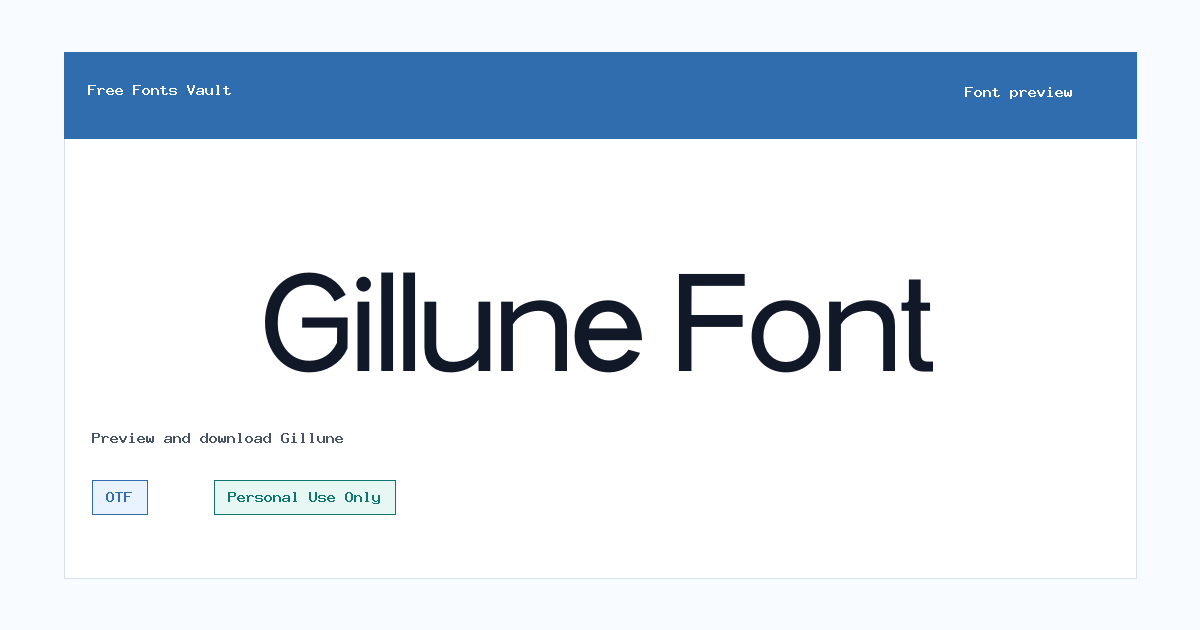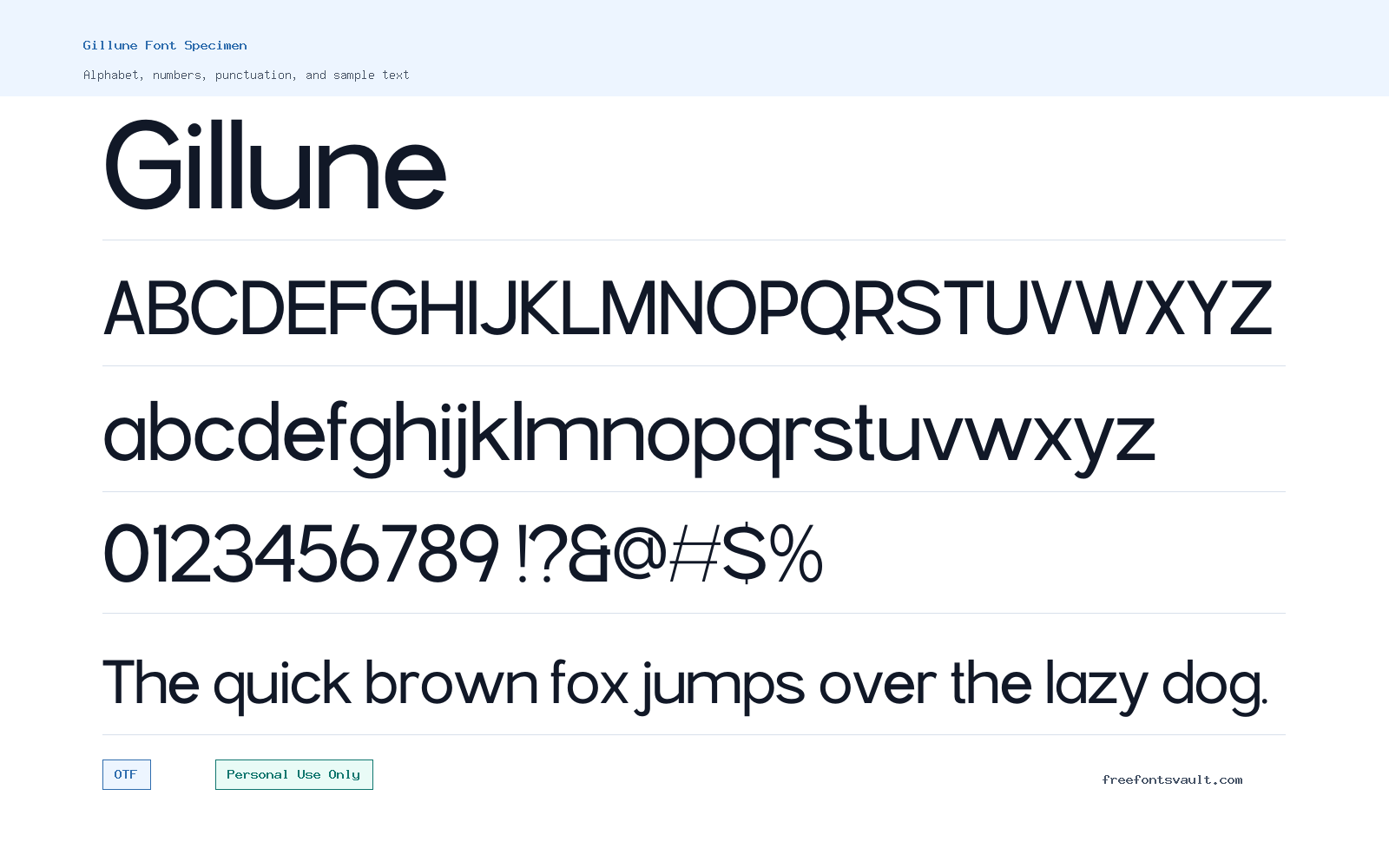
Gillune
Gillune is a clean geometric sans serif font family from Casloop Studio, made for sharp display typography, modern headings, and polished visual identity drafts. The downloadable set covers Regular, Italic, Bold, and Bold Italic OTF files, with a Personal Use Only license.
Gillune has the calm, structured look designers often want from a modern sans serif: simple letter shapes, even spacing, and a confident display voice without heavy decoration. It works best when the words need to feel neat and deliberate, such as brand name tests, poster titles, portfolio mockups, interface headings, and presentation covers. The bold style gives short phrases more presence, while the regular weight is useful for cleaner title lines and supporting text. The italic files add a slanted option for contrast, captions, or emphasis within a typographic layout.
Use Gillune first in the preview box with the real words you plan to design around. Test uppercase names, lowercase phrases, numbers, and any accented characters you need, because geometric display fonts can change mood quickly depending on the text. For logo work, check letters with strong shapes such as G, R, a, y, and round characters like O or C. For posters and web mockups, try it at large sizes with generous spacing. Avoid relying on it for long body copy until you have tested readability across paragraphs, smaller sizes, and mobile screens.
The family is especially useful for personal concept work where you want a corporate, minimal, or tech-adjacent tone without using a default system font. It can support clean branding studies, landing page hero text, social media title cards, pitch deck covers, and simple editorial graphics. The Bold and Bold Italic cuts are better for attention-grabbing display lines, while Regular and Italic are better for quieter hierarchy. If a design starts to feel too plain, pair Gillune with a warmer serif, a neutral text sans, or a restrained mono font rather than adding too many competing display faces.
For font pairing, keep the roles clear. Let Gillune handle the headline, logo draft, or short callout, then use a readable text family for paragraphs, menus, and dense information. Inter, IBM Plex Sans, Source Sans 3, and similar neutral sans families can work as practical companions because they stay out of the way. A classic serif can also soften Gillune’s geometric tone in editorial layouts. When using it for web mockups, test spacing carefully in navigation labels and buttons, especially if the design uses all caps or tight tracking.
- Geometric sans serif look suited to display typography and identity mockups
- Regular and Bold weights for simple hierarchy
- Italic companions for emphasis and contrast
- Personal logo concepts and brand name studies
- Poster titles and event mockups
- Website hero headings and landing page drafts
- Portfolio presentation covers
- Clean typography experiments with geometric sans serif styling
- Pitch deck title slides and visual identity moodboards
- Short display text where clarity and structure matter
Gillune is credited to Casloop Team, with Casloop Studio listed as the foundry. Casloop’s own site also lists Gillune under Casloop Studio.
Start with short text in the live preview: a brand name, headline, button label, or poster title. Compare Regular and Bold at large sizes, then check the italic styles only where emphasis is needed. Use relaxed spacing for uppercase headlines, avoid cramming long paragraphs into the display styles, and pair Gillune with a neutral text font when the layout needs readable body copy.
Who designed Gillune?
Gillune is credited to Casloop Team, and the foundry is listed as Casloop Studio.
What kind of design does Gillune suit?
Gillune suits clean display typography, modern headings, brand concept work, posters, web hero sections, and simple presentation graphics.
Is Gillune good for body text?
It is better treated as a display and heading font. Test it carefully before using it for long paragraphs, especially at small sizes.
What fonts pair well with Gillune?
Neutral text fonts such as Inter, IBM Plex Sans, Source Sans 3, or similar readable sans families can pair well when Gillune is used for headlines.